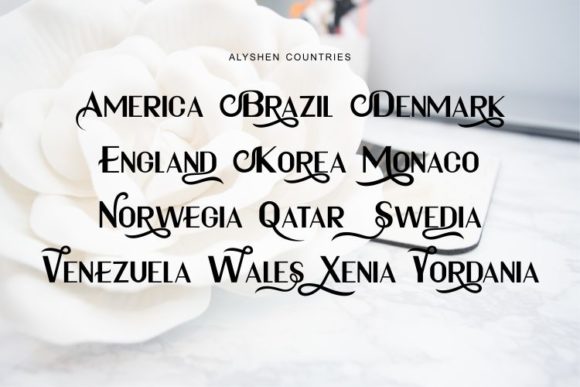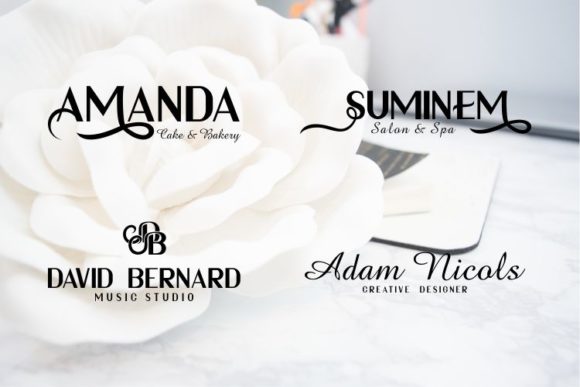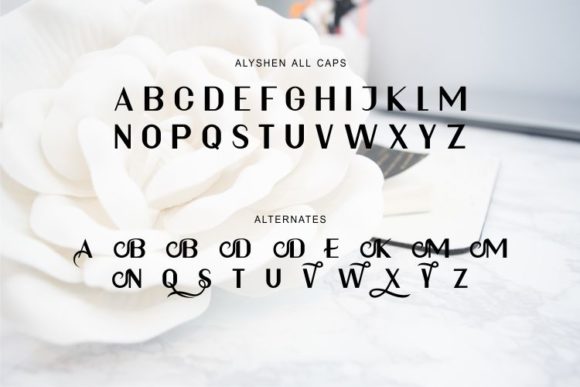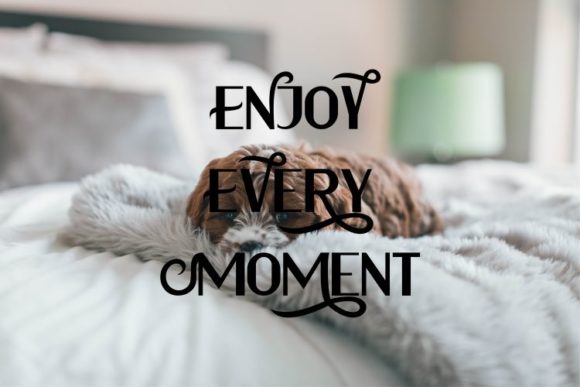
Alyshen Font: Elevate Your Designs with Elegance and Sophistication
In the world of typography, fonts play a crucial role in conveying the tone and aesthetic of a design. For those seeking to add a touch of luxury and femininity to their creations, the Alyshen font is an excellent choice. This elegant sans serif typeface has captured the hearts of designers and crafters alike with its unique blend of sophistication and charm.
The Alyshen Font: A Perfect Blend of Elegance and Femininity
The Alyshen font is characterized by its clean lines, simple shapes, and a distinct lack of embellishments, which are hallmarks of sans serif typefaces. However, what sets Alyshen apart is its subtle yet unmistakable feminine and elegant touch. This font exudes a sense of refinement and poise, making it perfect for designs that demand a high level of sophistication.
Key Features of the Alyshen Font
- Elegant Sans Serif Design: The Alyshen font boasts a sleek and modern sans serif design that is both versatile and timeless.
- Feminine Touch: Its subtle curves and refined lines give it a distinctly feminine flair, ideal for designs targeting a female audience or requiring a touch of elegance.
- High Readability: The clear and simple letterforms of the Alyshen font ensure high readability across various platforms and sizes.
- Versatility: Its elegant appearance makes it suitable for a wide range of design projects, from luxury branding and high-end fashion to wedding invitations and more.
Uses of the Alyshen Font
The versatility of the Alyshen font makes it a valuable asset for designers. Here are some of the top uses for this elegant typeface:
- Luxury Branding: For brands that wish to convey elegance, sophistication, and a high-end feel, the Alyshen font is an excellent choice.
- Fashion and Beauty: Perfect for fashion and beauty brands, especially those targeting a female audience, looking to add a touch of femininity and elegance to their branding.
- Wedding and Event Design: Its elegant and refined appearance makes it ideal for wedding invitations, event branding, and related design materials.
- Packaging Design: For luxury products, the Alyshen font can add a sophisticated and premium feel to packaging designs.
The Alyshen font is a stunning addition to the world of typography, offering designers and crafters a unique blend of elegance, sophistication, and femininity. Its versatility and high readability make it suitable for a wide range of design projects, from luxury branding to wedding designs. By incorporating the Alyshen font into your projects, you can elevate your designs and communicate a sense of refinement and luxury to your audience.
In conclusion, the Alyshen font stands out as a premier choice for designers seeking to infuse their projects with elegance, sophistication, and a touch of femininity. Its elegant sans serif design, coupled with its versatility and readability, makes it a valuable asset in any designer’s toolkit.